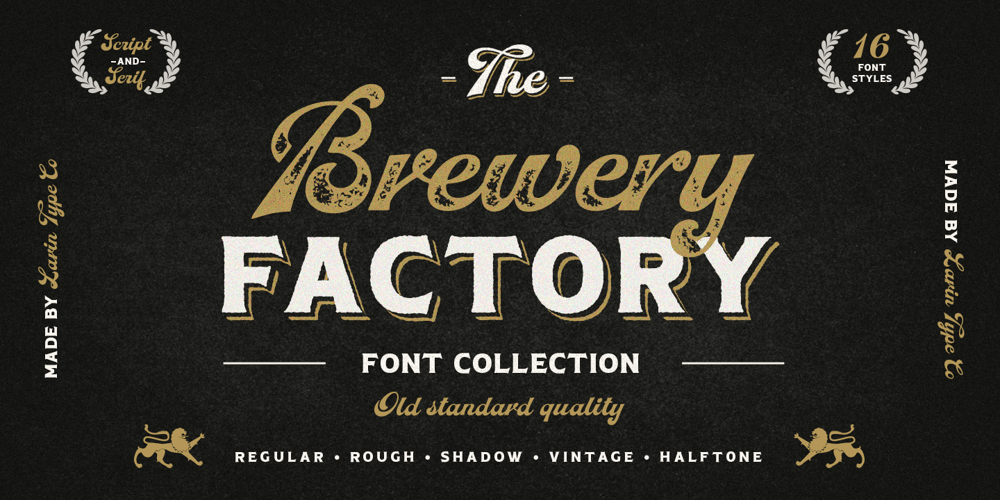
Brewery Factory Font Family was designed by Pavel Larin and published by Larin Type Co. Brewery Factory contains 16 styles and family package options. Brewery Factory This is a vintage font collection inspired by old brewery, pubs, bars and the style of their design. This collection includes 16 font styles – Serif and Script has a regular, rough, vintage, halftone style, as well as a regular and rough style for Serif and Script there are shadows in two versions – short and long. The script font includes alternatives for Uppercase and Lowercase, as well as swashes. This font is easy to use has OpenType features.